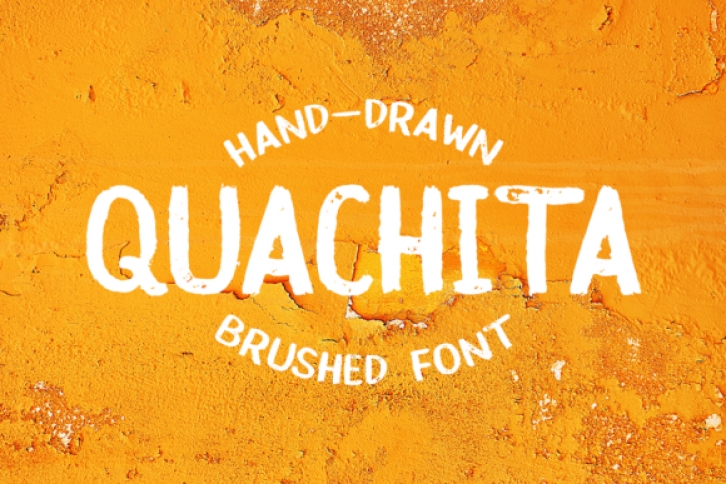
Quachita is a stylish brushed font, with a rust texture. It features an authentic feel and look. Use this outstanding display font to add a special touch to your projects!